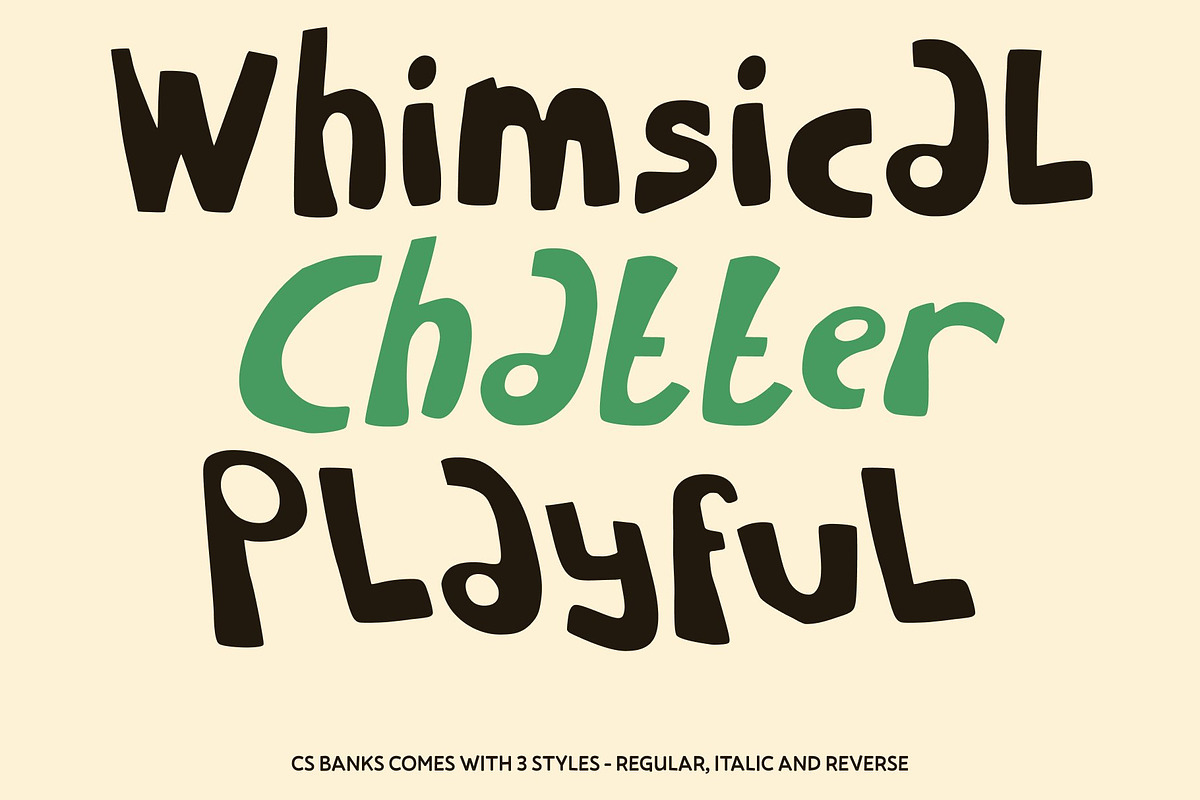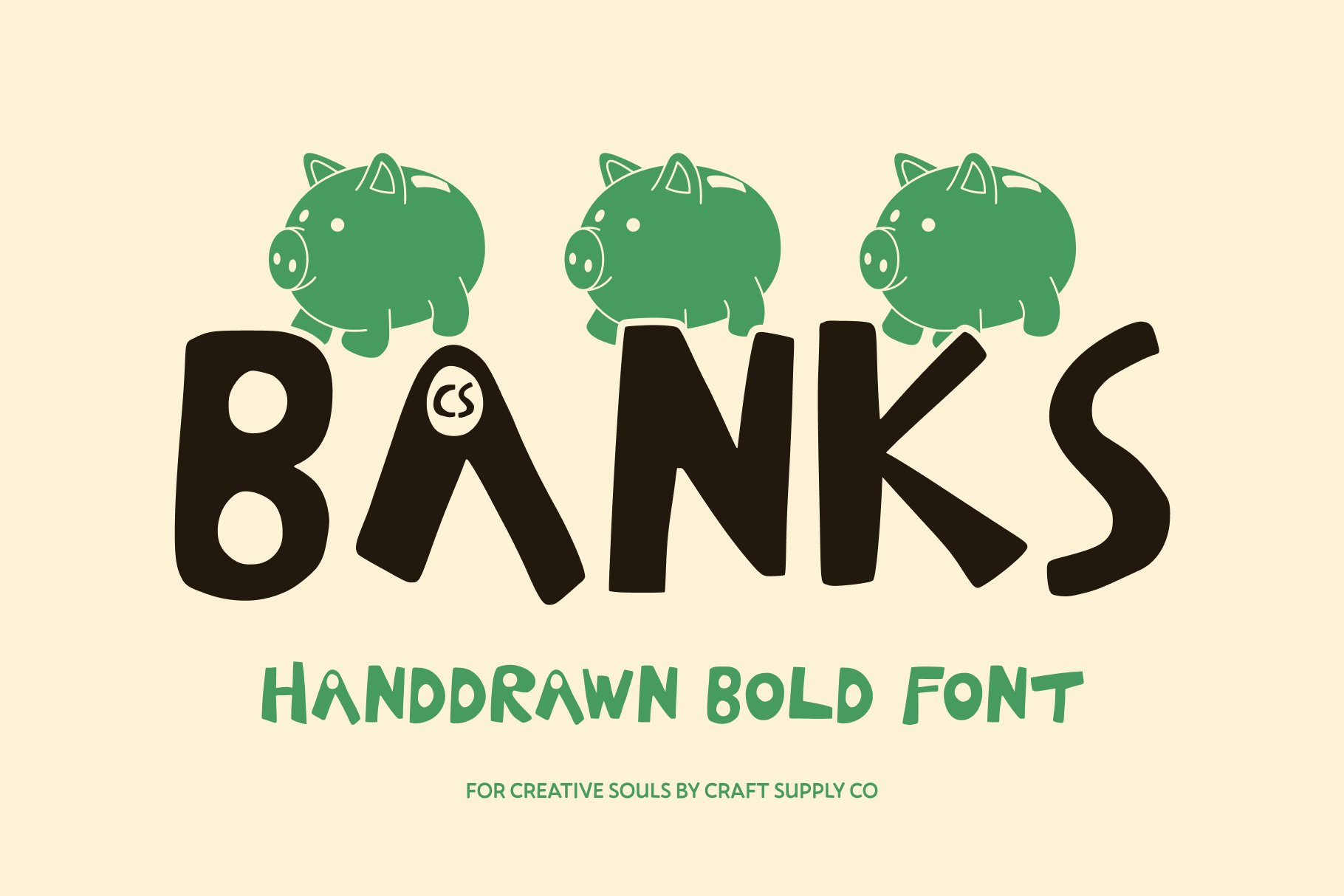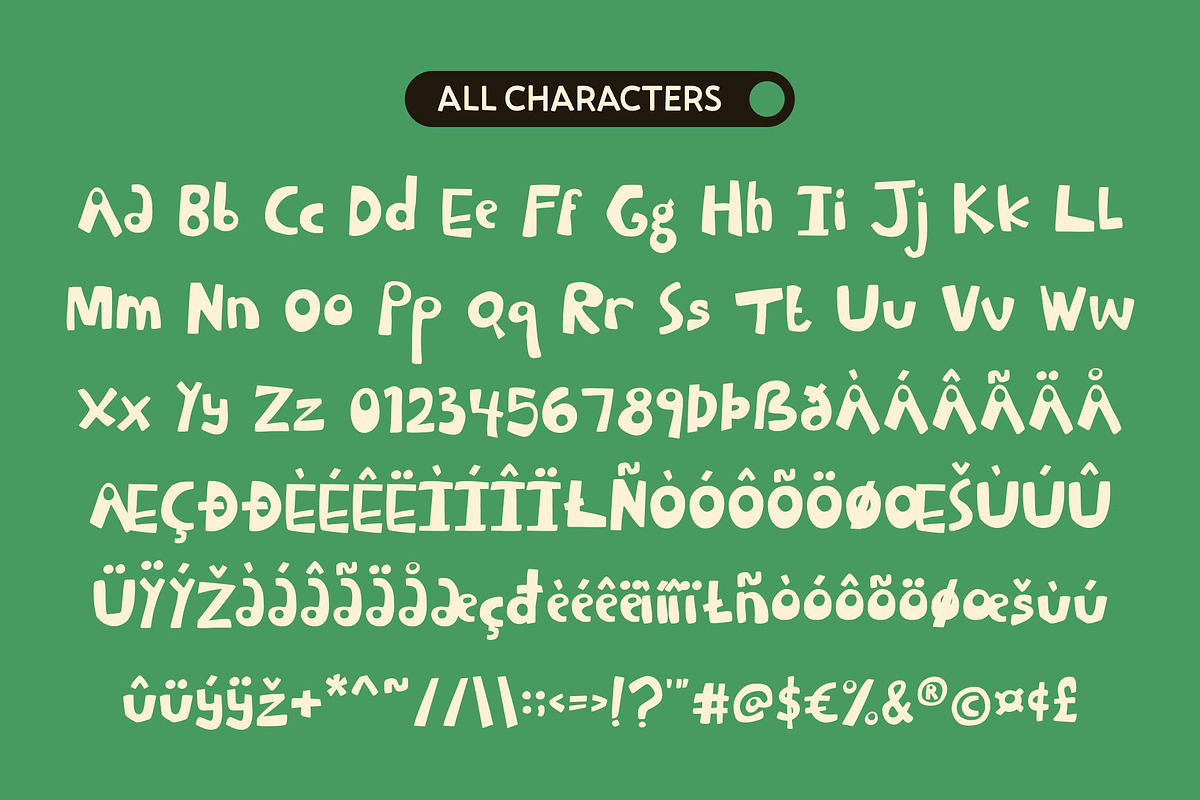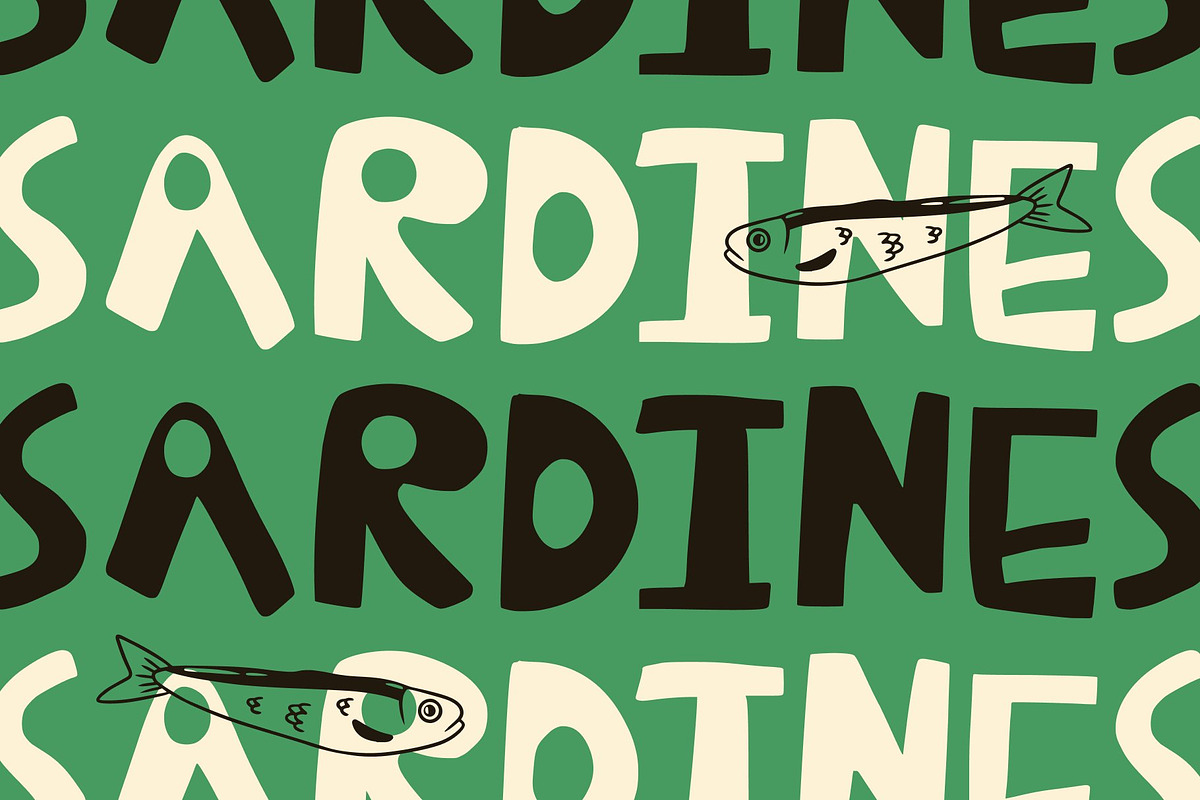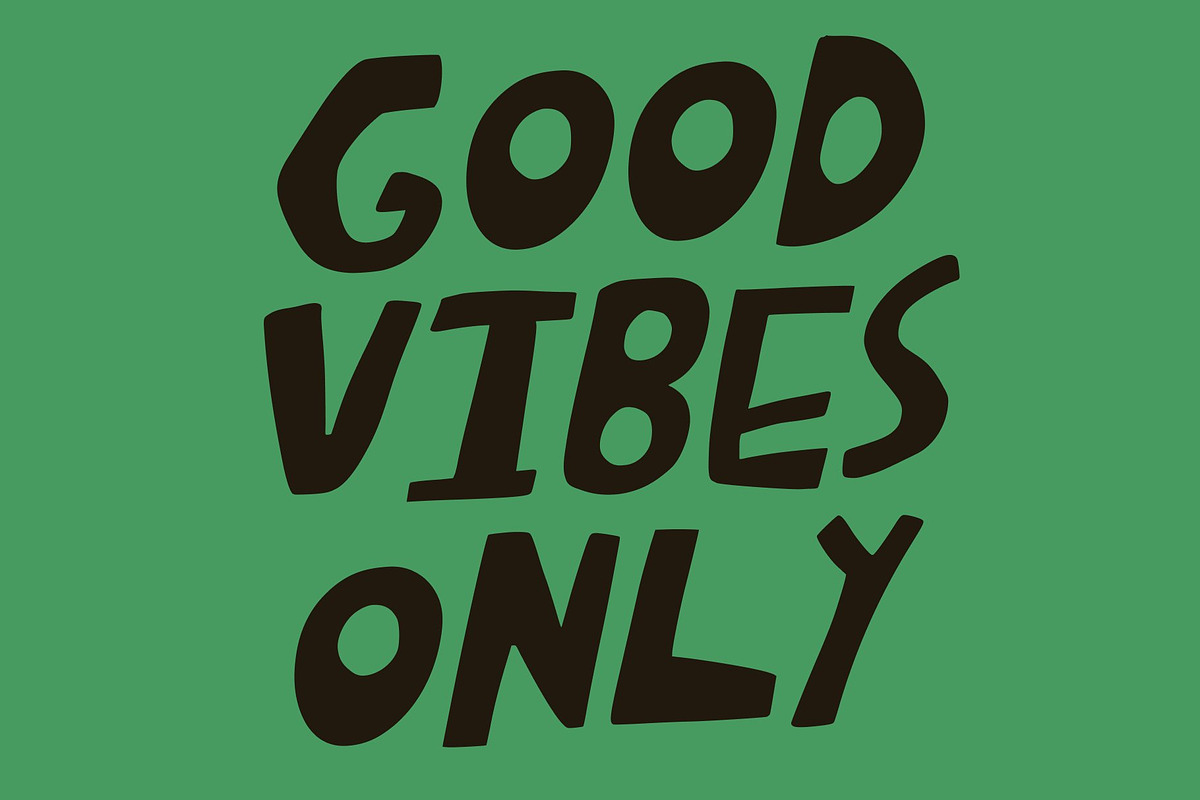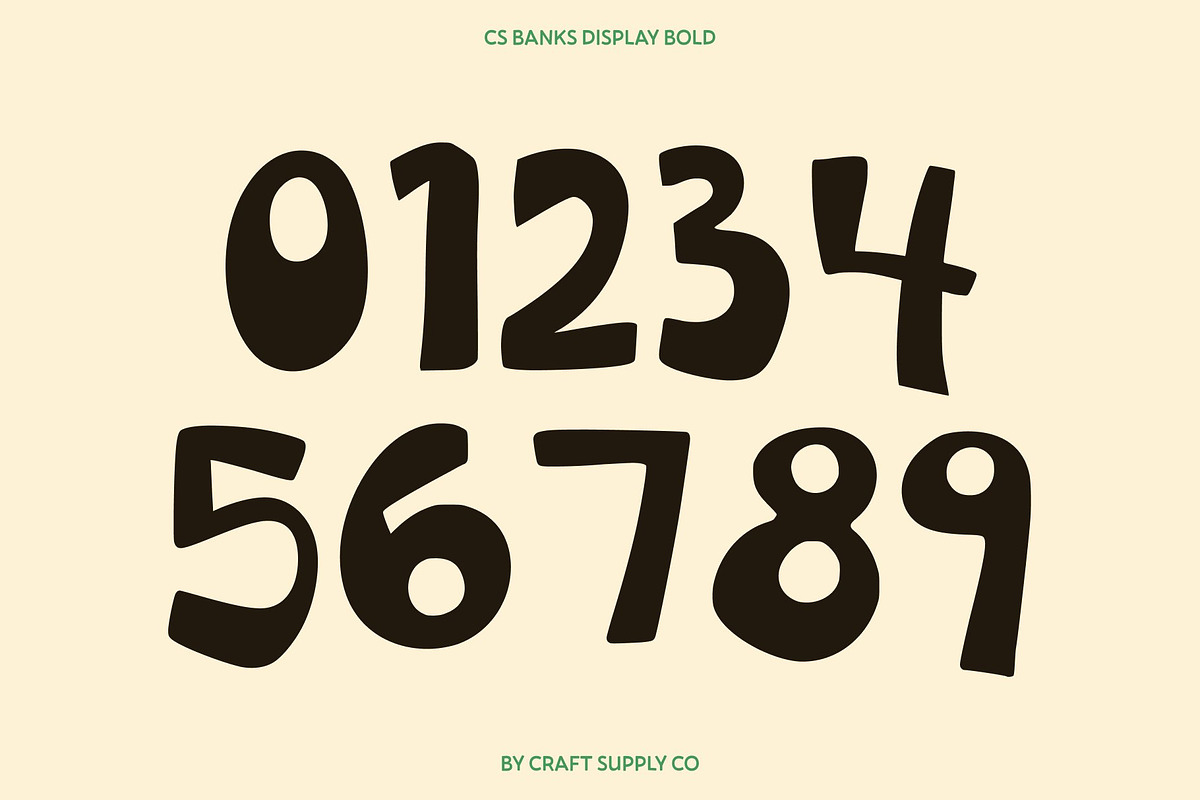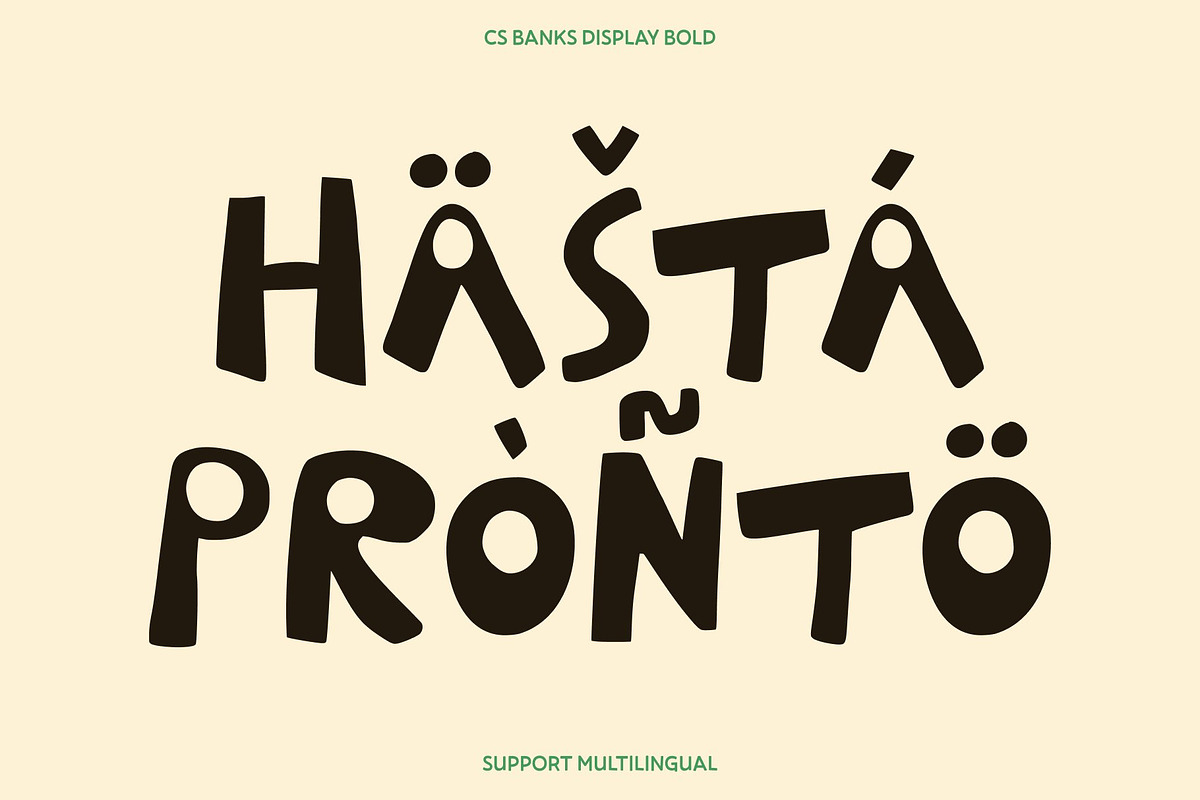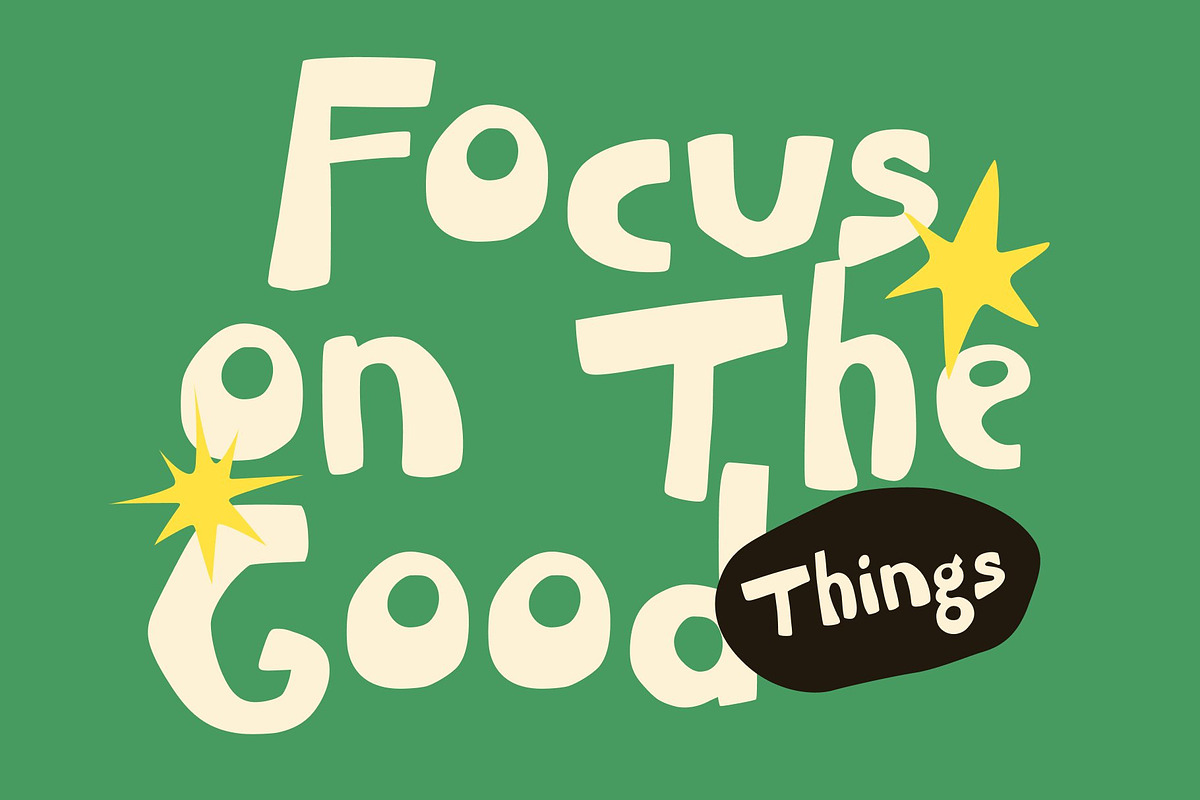
CS Banks – Fun Font
CS Banks – Playful Hand-Drawn Font with Bold, Energetic Personality
Bold Strokes with Friendly, Playful Shapes This font is a fun hand-drawn display created with bold strokes, geometric and charming, friendly forms that instantly brighten up any design. Its lively shapes and spontaneous drawing style give it a youthful, energetic vibe that feels natural, expressive, and full of character.
Experimental Style for Creative Expression With its experimental construction and dynamic letterforms, this font stands out as a font that embraces creativity and individuality. The slightly uneven strokes and playful proportions enhance its handcrafted feel, adding visual interest and personality. Every character carries a sense of motion and enthusiasm, making the font perfect for adventurous and expressive design concepts.
Ideal for Youth Branding and Casual Visual Identities This font thrives in youthful, upbeat branding projects that aim to feel vibrant and approachable. Its bold, hand-drawn aesthetic makes it perfect for lifestyle brands, kid-focused products, casual businesses, or anything that celebrates fun and creativity. Whether used in logos, product labels, or tagline designs, instantly sets a cheerful tone.
Perfect for Greeting Cards, Social Media, and Fun Display Uses This expressive hand-drawn font adds charm to greeting cards, invitations, posters, and playful digital content. Its friendly shapes and lively movement make headlines pop, while its warm, handmade feel adds emotional appeal to every design.